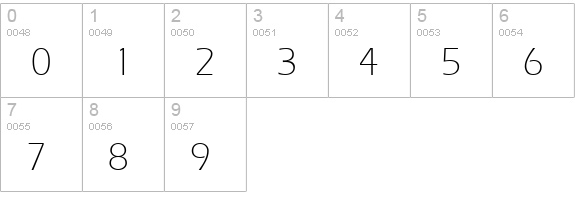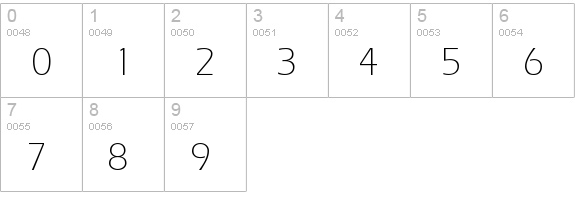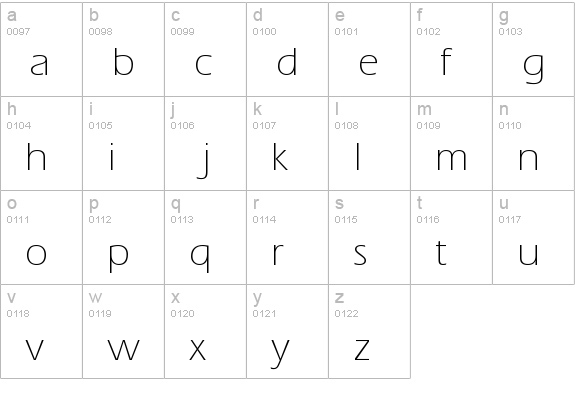
Speedo Light SSi Extra Light is a refined, elegant variant in the Speedo typeface family \xE2\x80\x94 well suited to elegant body text, refined sub-headings, and luxury branding.
Speedo Light SSi Extra Light is a sleek and modern font that exudes elegance and sophistication. With its clean and minimalist design, this font is perfect for adding a touch of refinement to any project. The thin strokes and rounded edges create a sense of delicacy, making it ideal for use in headlines, logos, and branding materials. This font offers exceptional legibility, ensuring that your message is conveyed with clarity and precision. Whether you're designing a website, creating a magazine layout, or crafting a social media post, Speedo Light SSi Extra Light will elevate your content to new heights. One of the best things about Speedo Light SSi Extra Light is that it is freely available to download at FontsMarket.com. This means that you can easily access and use this stunning font without any cost or restrictions. FontsMarket.com is a trusted source for high-quality fonts, and their user-friendly platform makes it effortless to find and download the perfect typeface for your projects. So, why not take advantage of this amazing opportunity to enhance your designs with Speedo Light SSi Extra Light? Download this font today from FontsMarket.com and unlock a world of creative possibilities. Elevate your typography game and make a lasting impression with the timeless beauty of Speedo Light SSi Extra Light.